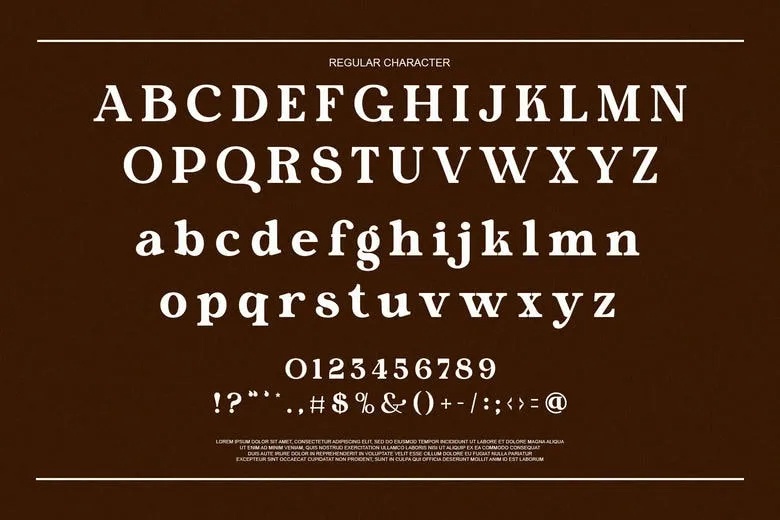
Morina Borick is a modern ligature serif typeface that evokes the essence of fresh flowers, modesty, and classy sophistication. With its beautifully crafted, sharp, and edgy ligatures, Morina Borick stands out as a glamorous yet proper typeface.
This font is best suited for elegant designs related to floral themes, fashion, or luxury branding. It seamlessly combines the timeless sophistication of serifs with contemporary contours. Each letter is meticulously crafted, with soft, gentle lines that lend any project a refined and captivating charm.
Using Morina Borick in your designs will infuse them with a sense of calm and serene elegance, creating a distinctive identity. Whether for personal or professional projects, this font offers a touch of sophistication and refinement that elevates your work.